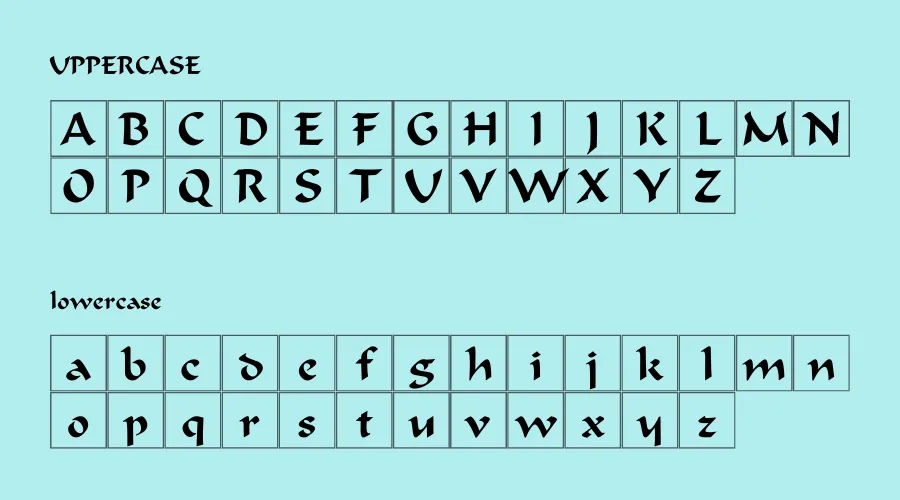
Ignacious Font
About Ignacious Font
Ignacious Font is designed by Freda Sack and it is a decorative typeface almost all developers may use it for greeting cards, invites, names, trademarks, marketing, and a variety of other things. This lovely, typeface will improve any event.
This typeface is incredibly appealing and has a wide range of applications, including mockups, emblems, business cards, and invitation cards.
For a design that seems more professional, use this typeface. It will be possible for you to make a distinctive design with this typeface.
A typeface may also be used to add elegant style to any backdrop image, whether it be for branding purposes, home décor, or product packaging. This typeface’s creator wanted to provide the greatest project designs to users.
This lettering style may also be used to create logos, graphic designs and modern advertising. Designers like this typeface because of how realistic it looks. Additionally, you may choose from a wide range of lovely typefaces.
The beautiful typeface is easily obtainable here for use in your designs. This gorgeous typeface may be used for a variety of personal projects, such as channel designs, website themes, and images. It is advised for use in creating logos for a variety of well-known websites and blog.
Name Ignacious Font
Designer Freda Sack
Style Decorative
• Ignacious Regular